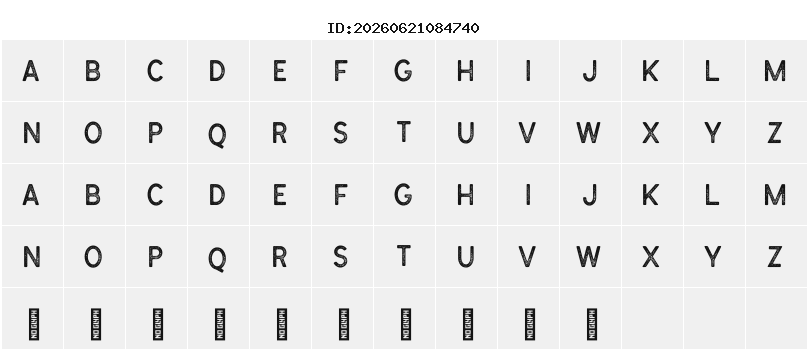
Cymbria Bold Textured Preview
• Font Name: Cymbria Bold Textured
• Full Font Name: Cymbria Bold Textured
• Character Count: 56
• Designer: Font Forestry
• Manufacturer: Font Forestry
About Cymbria Bold Textured.otf
Cymbria Bold Textured.otf is a modern, elegant sans-serif font designed for ultimate readability and visual harmony. Perfect for branding, headlines, web design, and print materials.